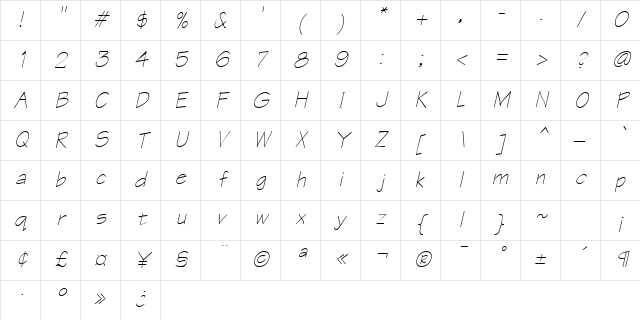
Archtype Oblique Free Font
Archtype Oblique
Design Context for Archtype
Archtype is a composed and adaptable typeface that performs quietly and consistently across a wide range of design contexts. The slanted form adds forward momentum and visual energy.
Pro Tip: Use Archtype for emphasis, pull quotes, and subheadings where its slanted energy can add rhythm to the layout.